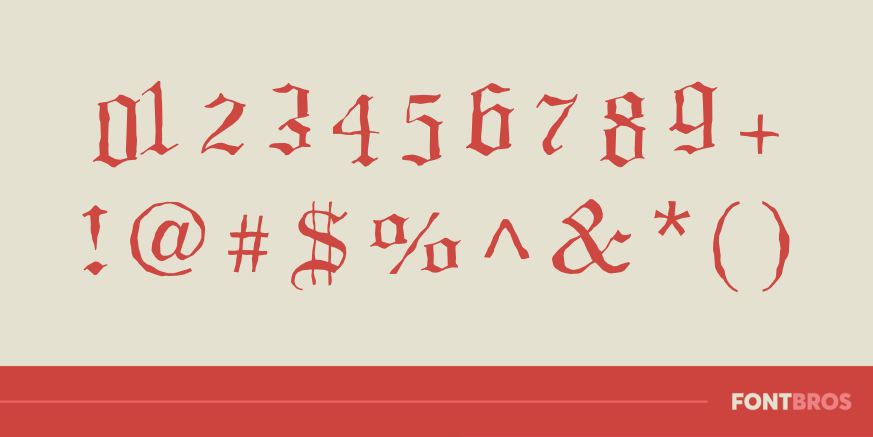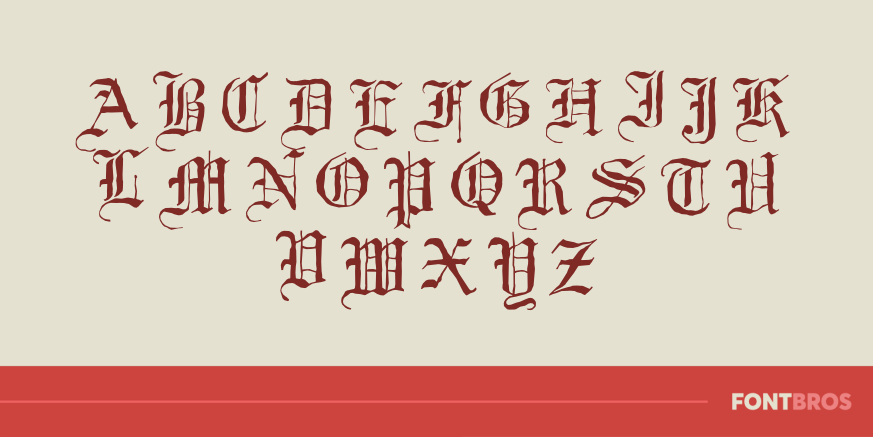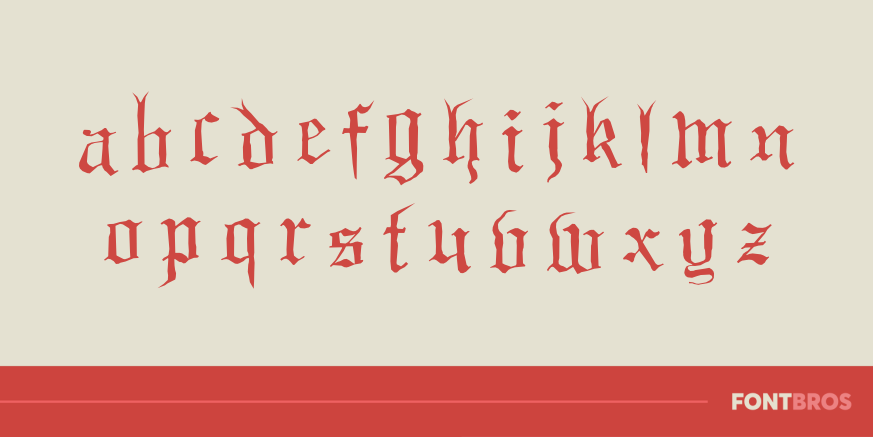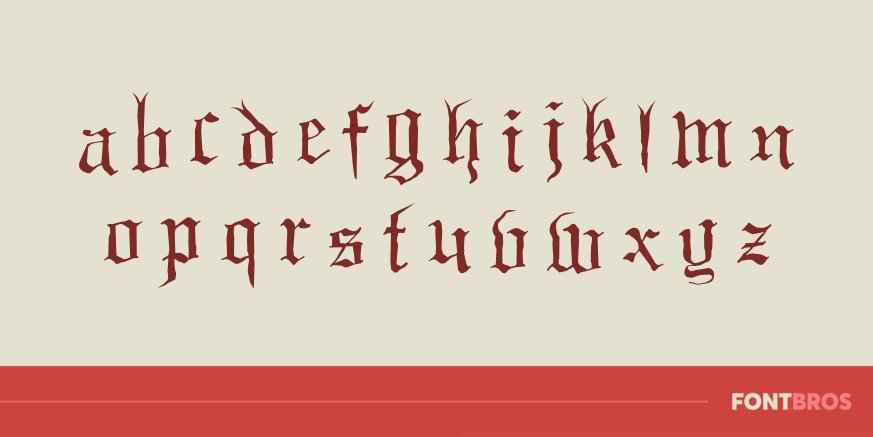
Black Night
Font Family by Font Diner
The thick evening fog fills your lungs as the moon hides behind its own shadow on a Halloween night so scary it can only be called Black Night!